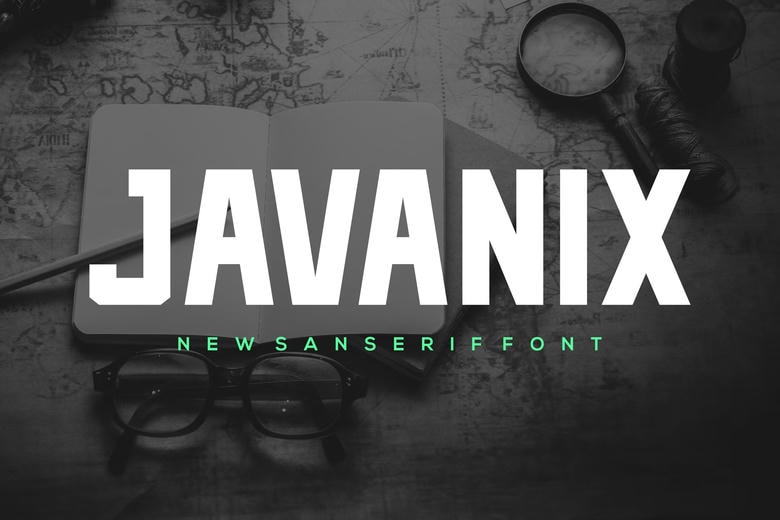
Javanix Font
Javanix is a rustic sans serif typeface, that is suited very well in branding projects such as logos & more related to sports. It has been made distinguishable across all different uses.
Javanix Sans Serif Font